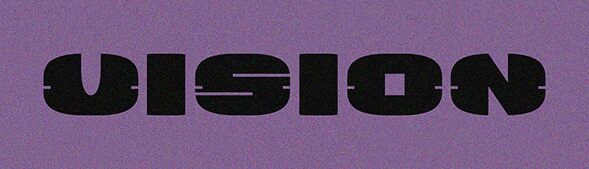
Vision Extravagant Regular
Vision Extravagant font by Vladimir Nikolic is a techno display free font designed with bold expanded letters and futuristic yet modern appeal. Its rounded geometric appearance creates an inspiration of strong visual presence that can help achieve the maximum level of exposure and impact with professional designs.
Thanks to its unique high-impact characteristics, Vision Extravagant can be ideal for creating posters, flyers, book covers, magazine covers, websites, social media visuals, branding design projects like business cards or logos, signages and more.